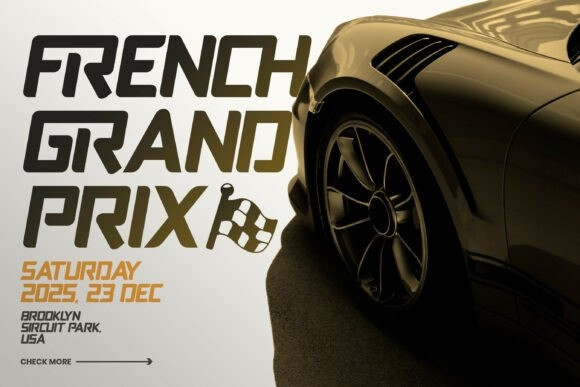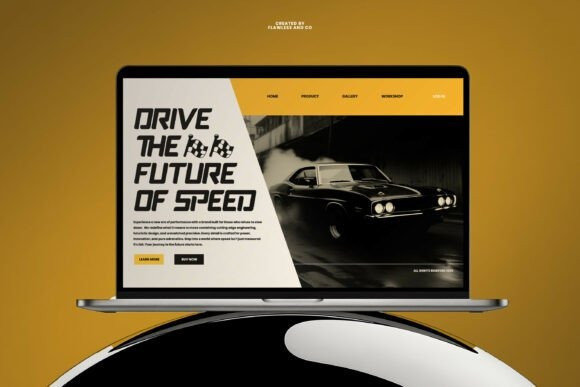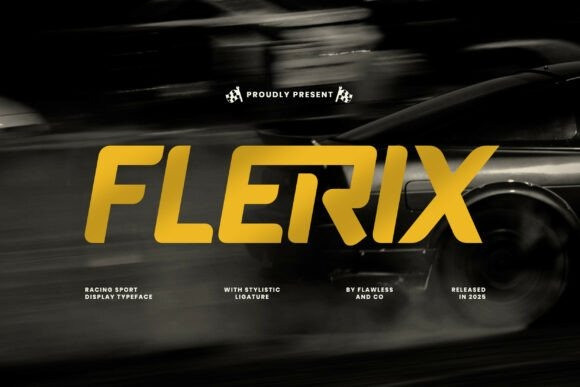
Flerix Font
Flerix Font is a high-speed racing display font built to inject adrenaline, power, and motion into every design. With its aerodynamic letterforms, sharp curves, and dynamic slanted cuts, Flerix creates the sensation of speed even in a static layout — making every word feel fast, competitive, and unstoppable. This typeface embodies the spirit of racing, performance, and automotive energy, perfect for projects that demand a modern and action-driven visual identity.